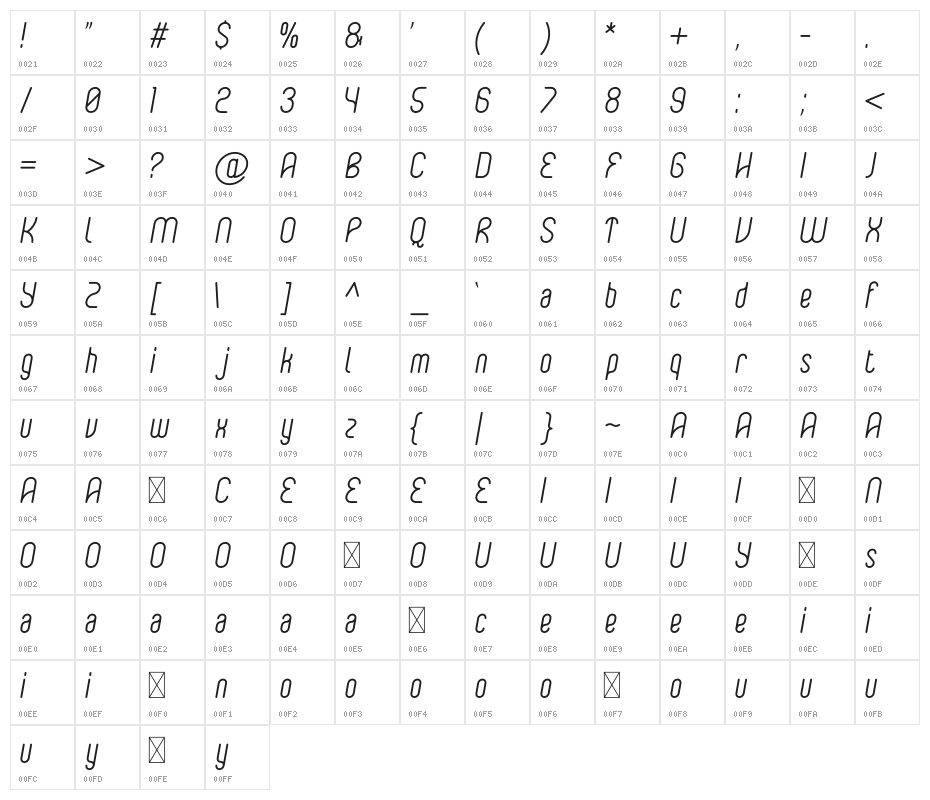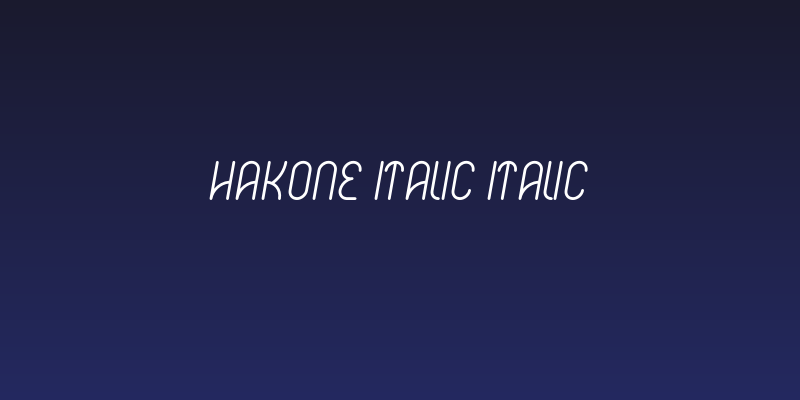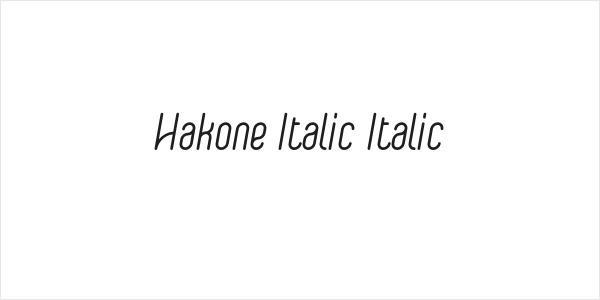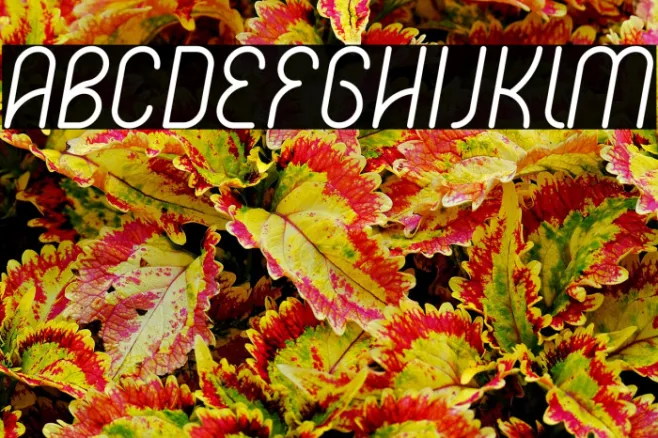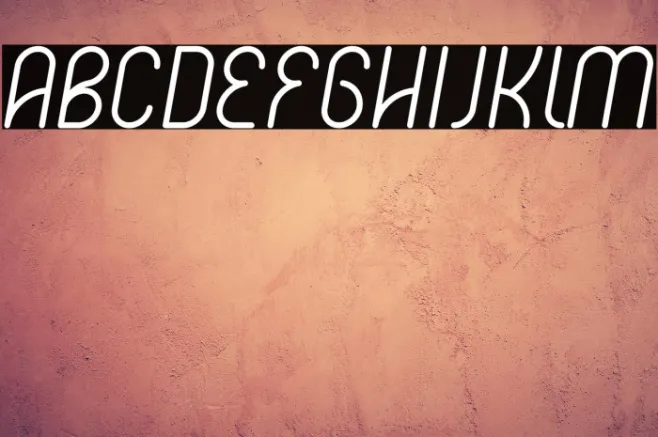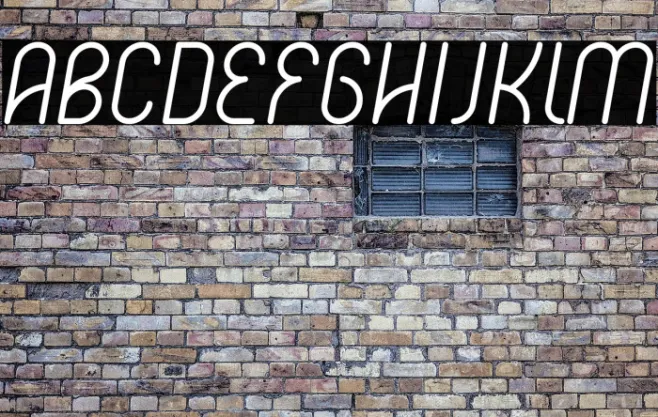
Hakone Italic Italic Font
Hakone Italic Italic Description
This font features a modern, sleek design with a distinct italic style. The characters are elongated and have a smooth, continuous flow, giving them a dynamic and energetic appearance. The rounded edges and uniform stroke width contribute to a clean and approachable aesthetic. The font maintains a consistent rhythm across both uppercase and lowercase letters, as well as numbers and special characters. Its unique style makes it suitable for projects that require a contemporary and stylish look.
| Proposed Projects | Ideal for branding, advertising, and editorial design where a modern and stylish appearance is desired. |